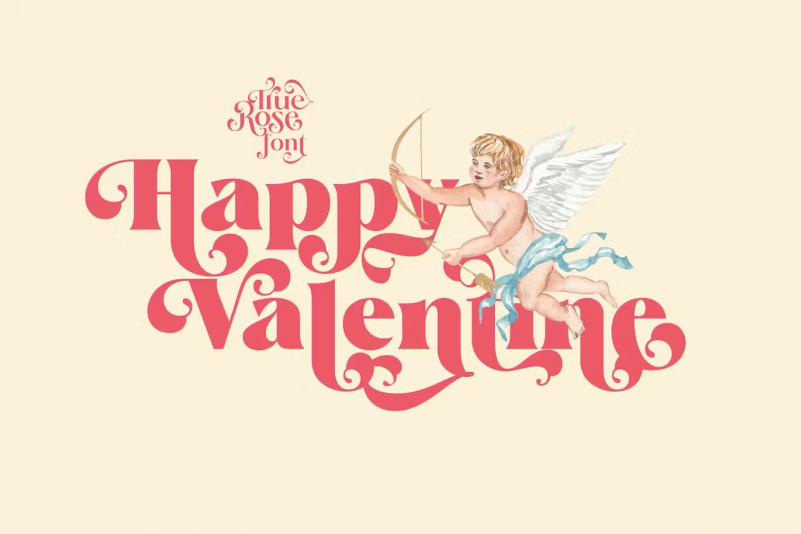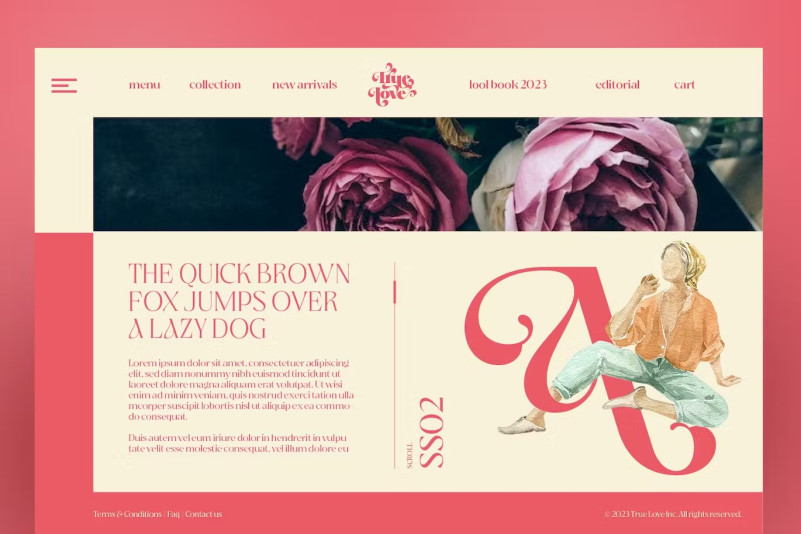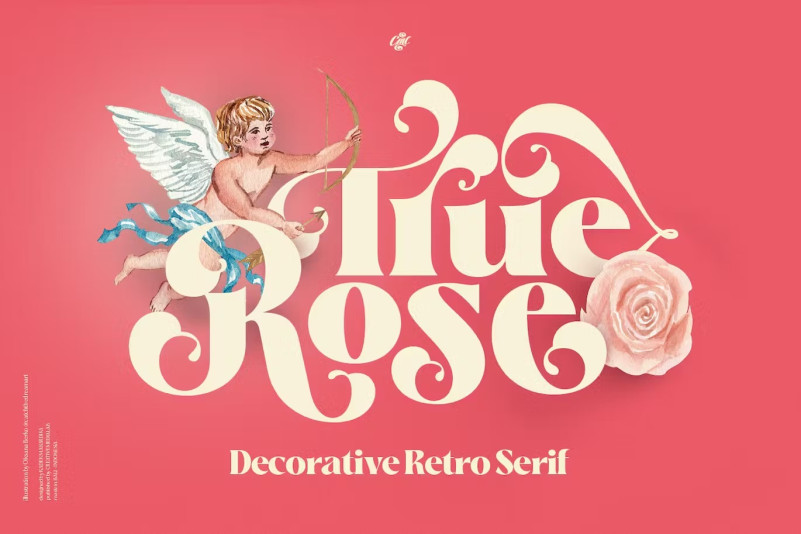
True Rose Font
True Rose Font is a family of decorative serifs. The bold, vintage retro style combined with simple Victorian ornaments gives the lettering a neat and clean look, perfect for your title, or branding projects.